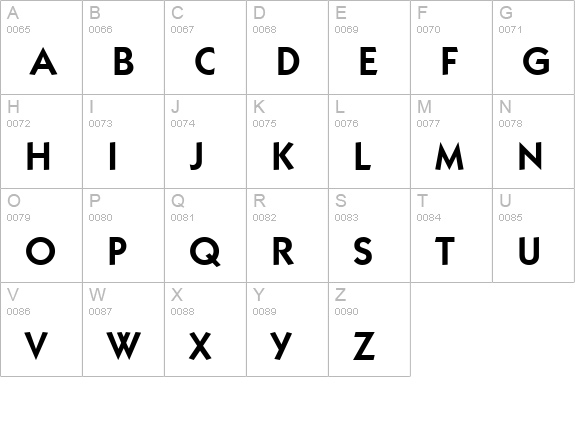
Performa Book SSi Semi Bold is a comfortable, highly readable variant in the Performa typeface family \xE2\x80\x94 well suited to long-form body text, articles, and editorial content.
The Performa Book SSi Semi Bold font is a stunning typeface that exudes a sense of modern elegance and sophistication. Its semi-bold weight adds a touch of emphasis and visual impact to any design project, making it perfect for headlines, titles, and branding materials. With its clean and well-defined letterforms, Performa Book SSi Semi Bold font offers excellent legibility in both print and digital mediums. Its balanced proportions and carefully crafted curves create a harmonious and pleasing aesthetic that will captivate the attention of viewers. One of the most delightful aspects of the Performa Book SSi Semi Bold font is that it is freely available to download at FontsMarket.com. Aspiring designers, professionals, and enthusiasts can now access this extraordinary font without any cost, enhancing their creative arsenal with a versatile and visually appealing typography option. Whether you are working on a website, logo, advertising campaign, or any other design project, the Performa Book SSi Semi Bold font will effortlessly elevate your work to new heights. Its timeless appeal and versatility ensure that it can be seamlessly integrated into a wide range of design styles and themes, making it an invaluable asset for any creative endeavor. With its generous x-height and well-spaced glyphs, this font guarantees optimal legibility even at smaller sizes. Additionally, its extensive character set includes punctuation marks, numerals, and alternative characters, providing flexibility and customization options to suit individual design preferences. In summary, the Performa Book SSi Semi Bold font is a must-have for designers who seek to make a bold statement with their typography choices. Its stunning design, exceptional legibility, and the fact that it is freely available to download at FontsMarket.com make it an irresistible option for anyone looking to enhance their creative projects with a touch of elegance and sophistication.